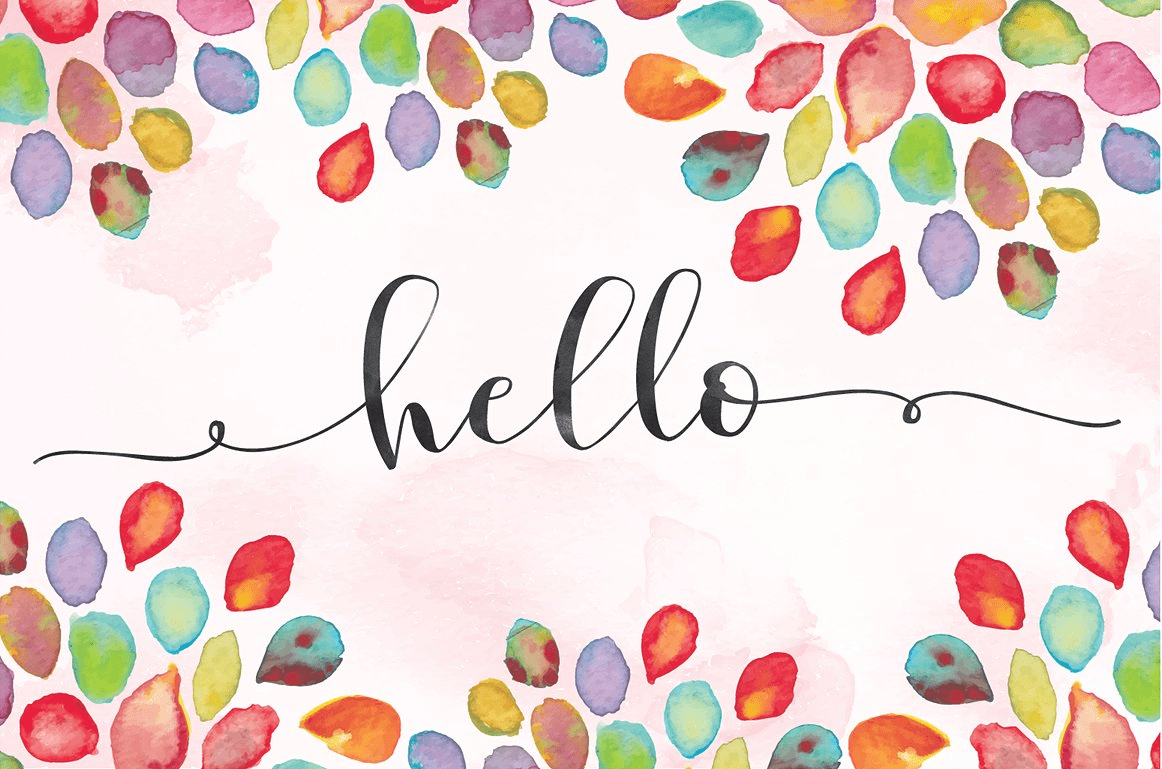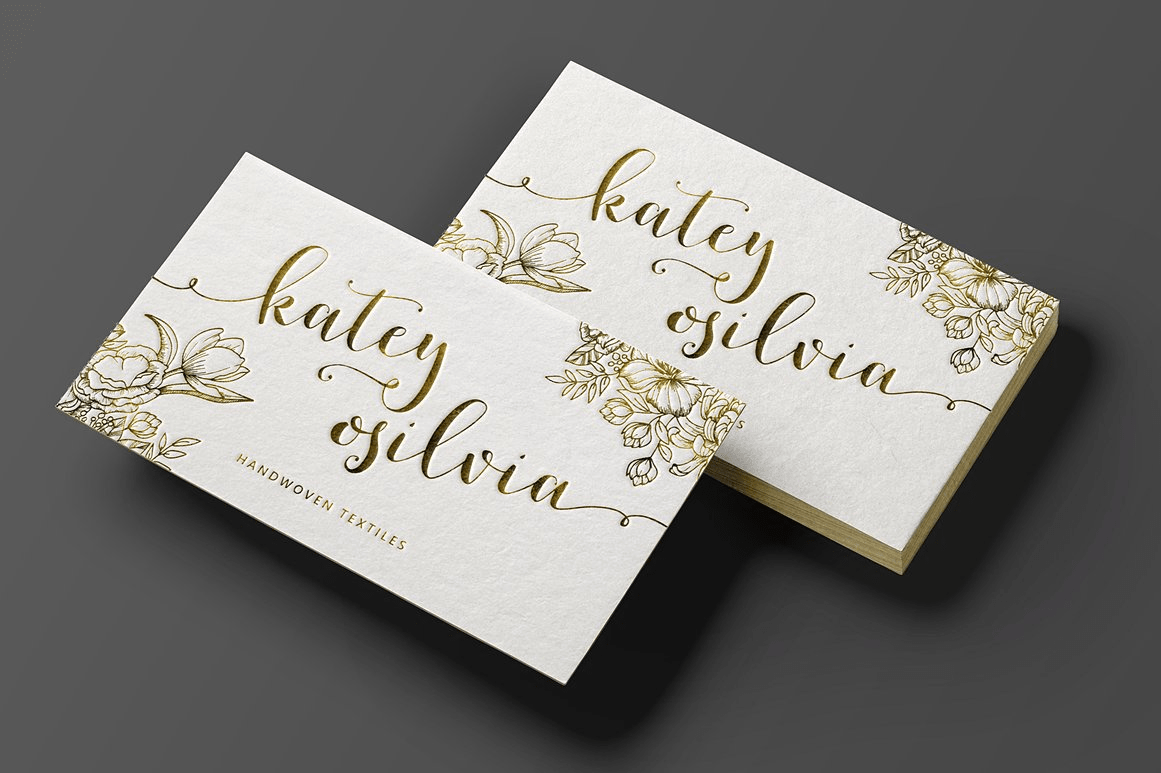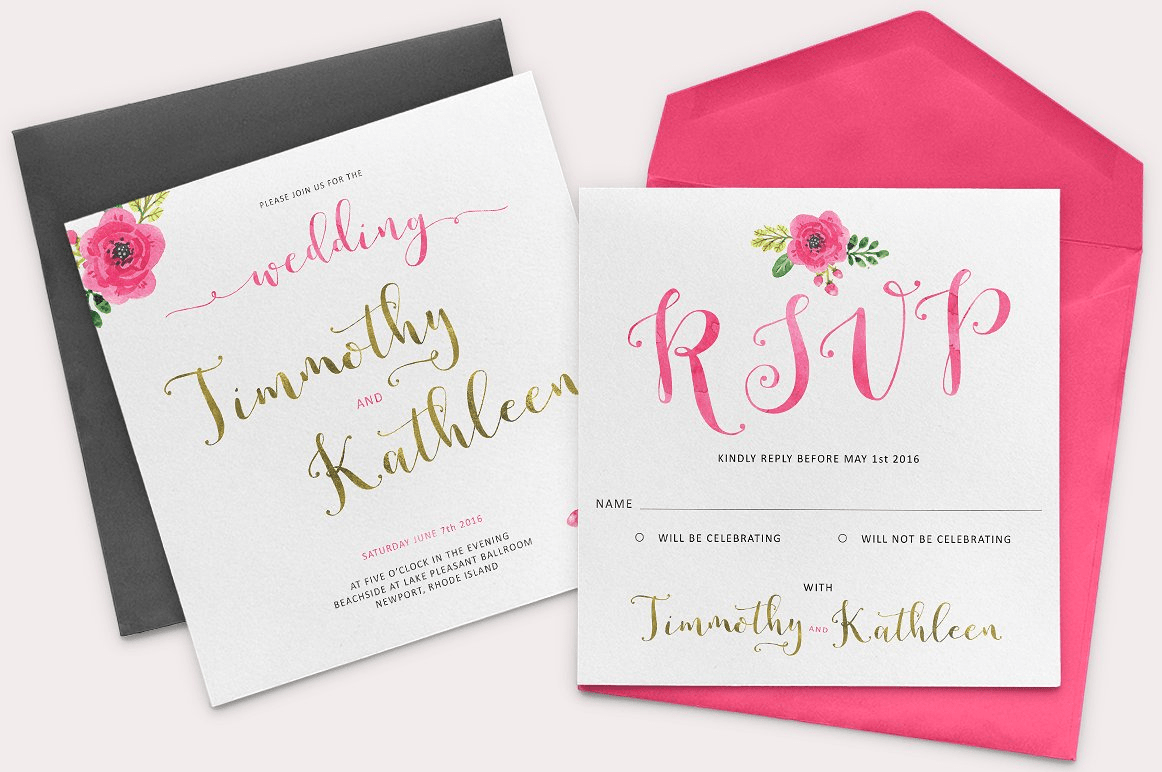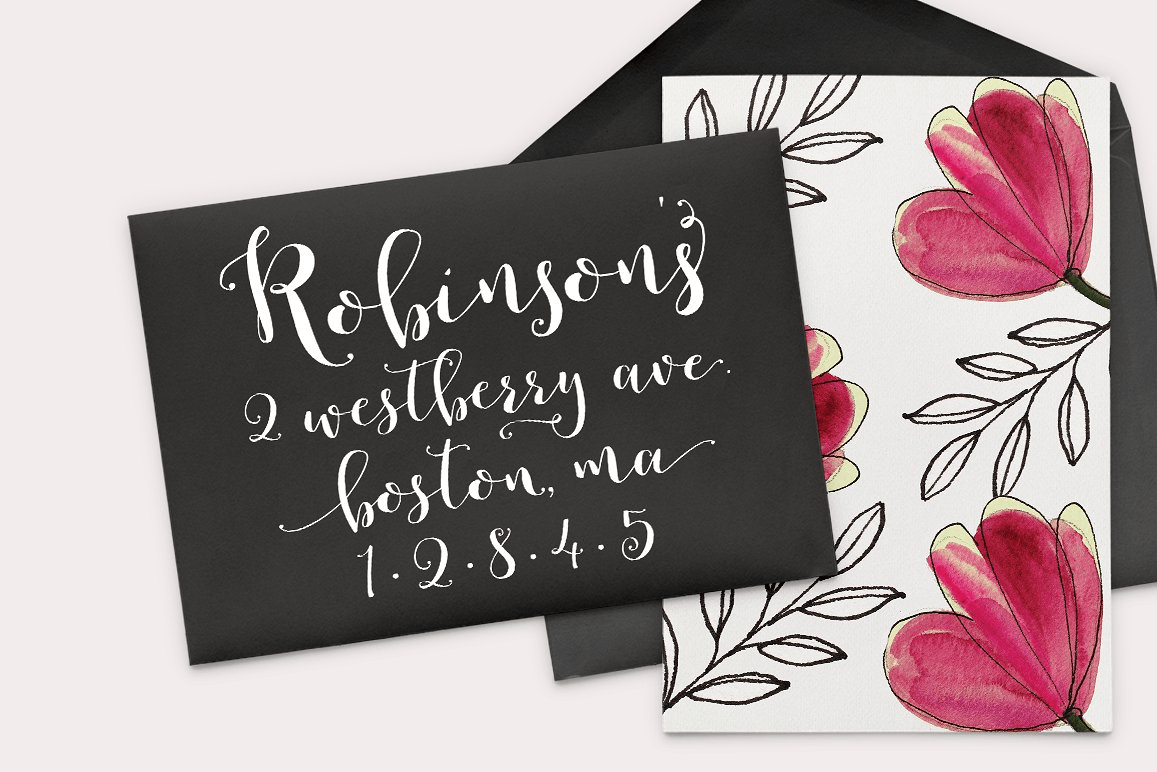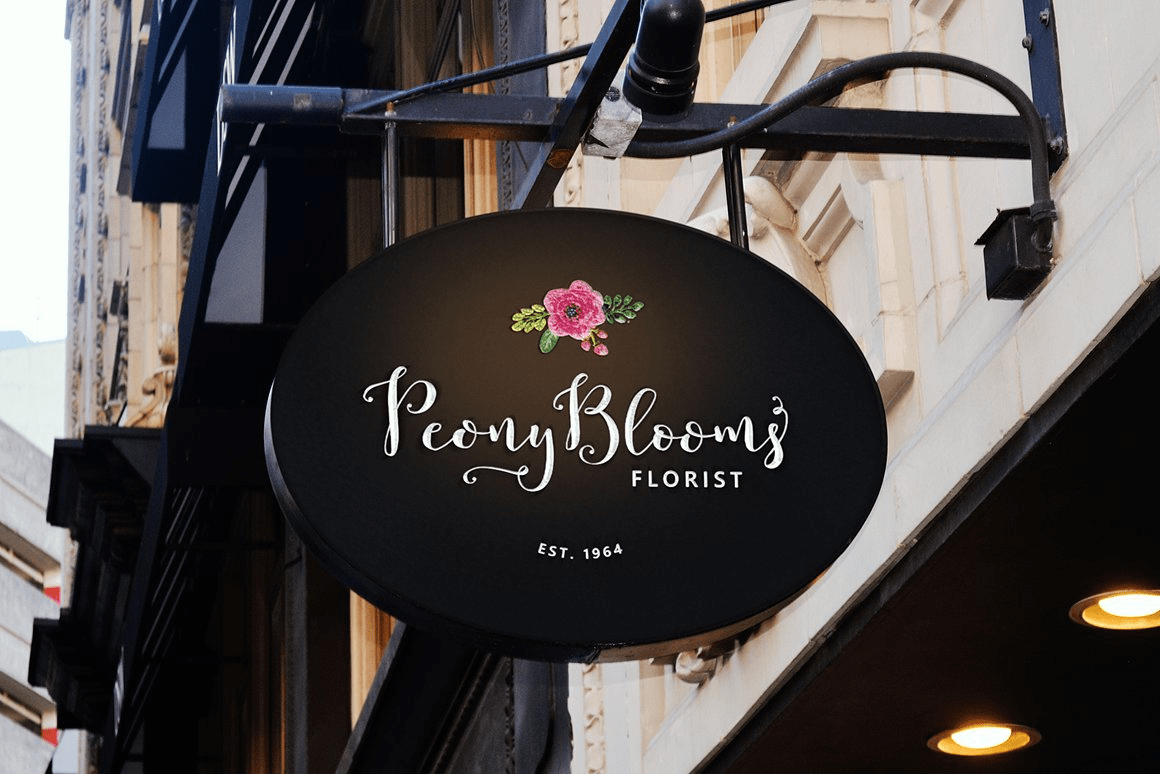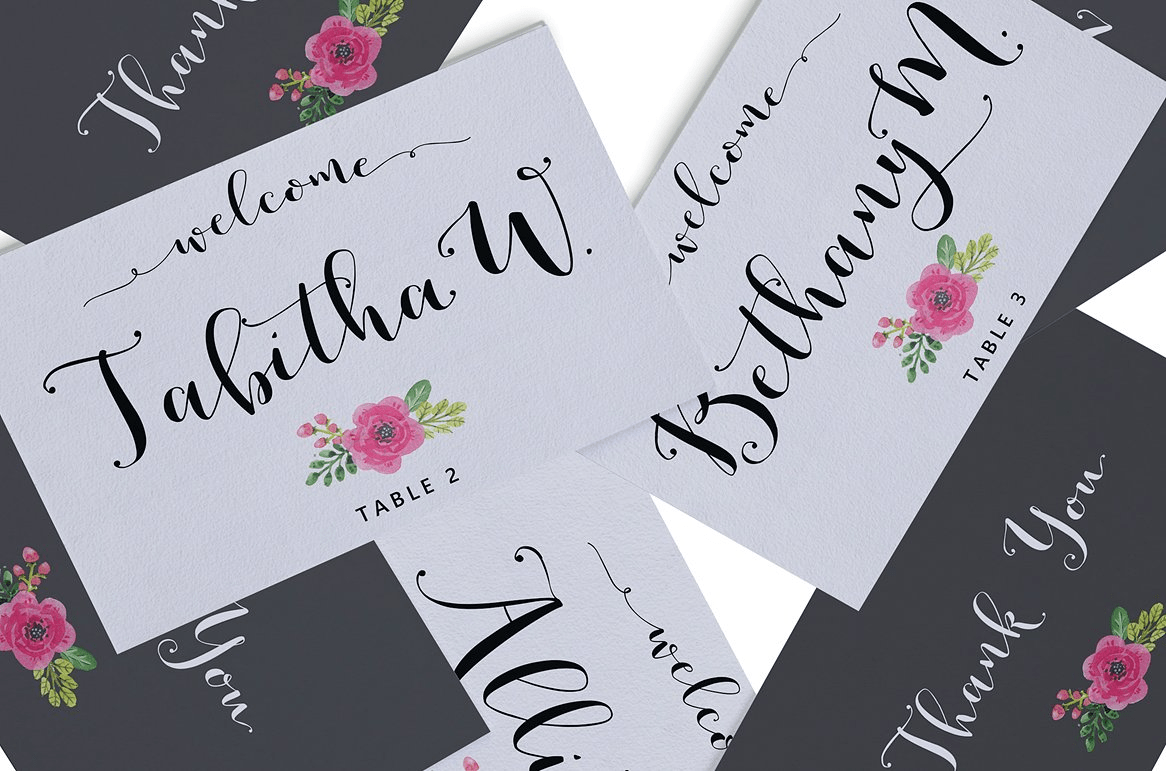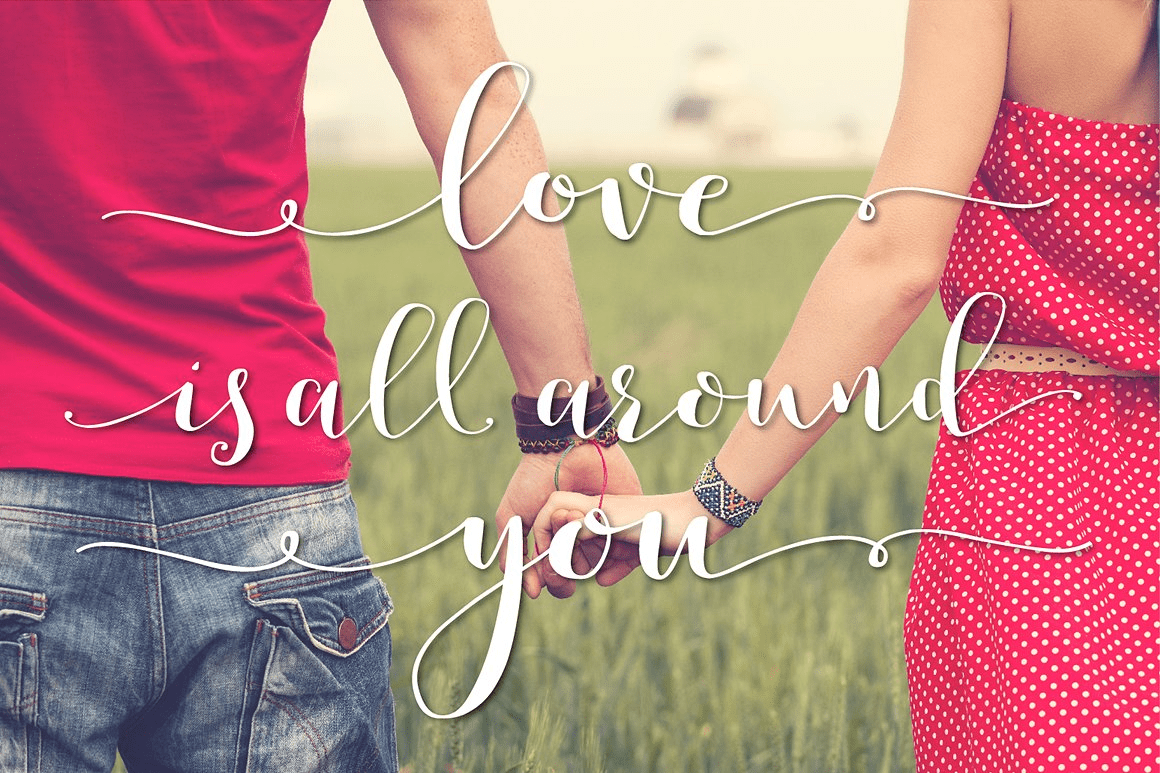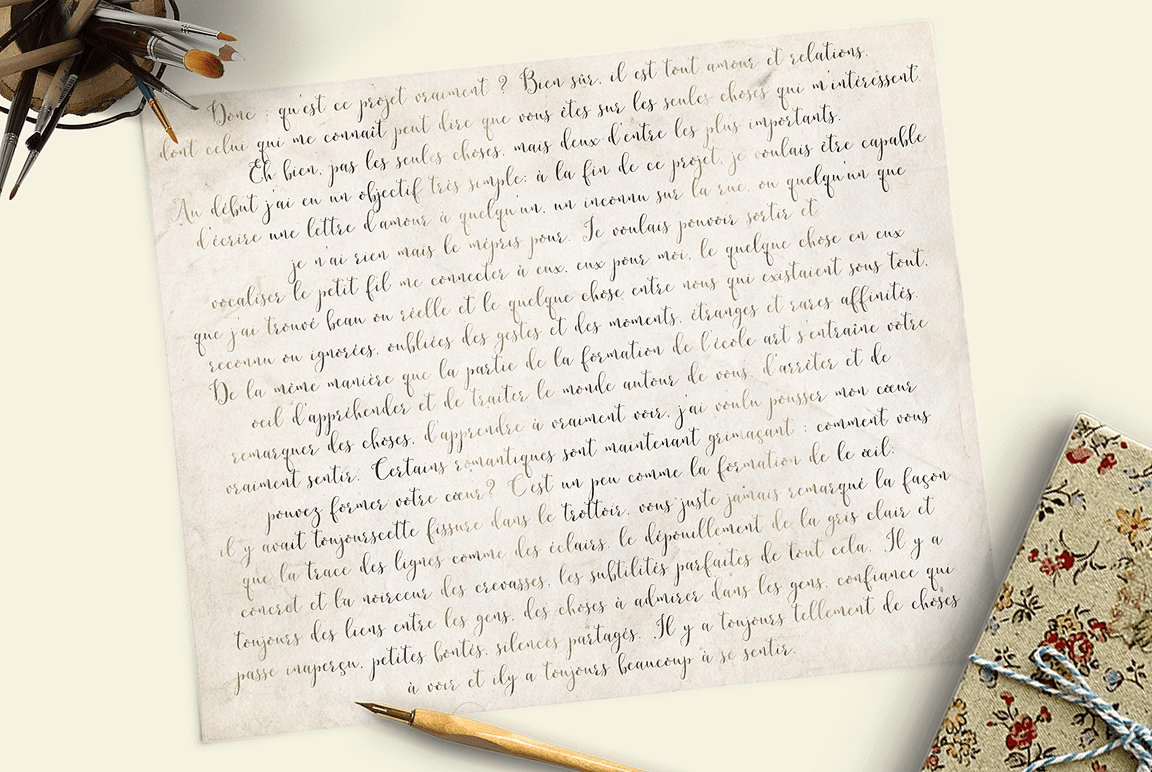
Romantic Script
Hello there Lettering Lovers! Introducing Romantic Script. This sweet feminine script is packed with more than 1800+ characters! Font lovers will have so much fun, and everything you create will be a unique work of art. The combinations are endless. Various short to long swashes make this script completely adaptable to all occasions.
This font is perfect for faking hand-lettered calligraphy stationary and envelopes!
9 Styles Included
Regular
Alt 1
Alt 2
Right 1
Right 2
Right 3
Left 1
Left 2
Left 3
The Romantic Script font family includes 349 glyphs.